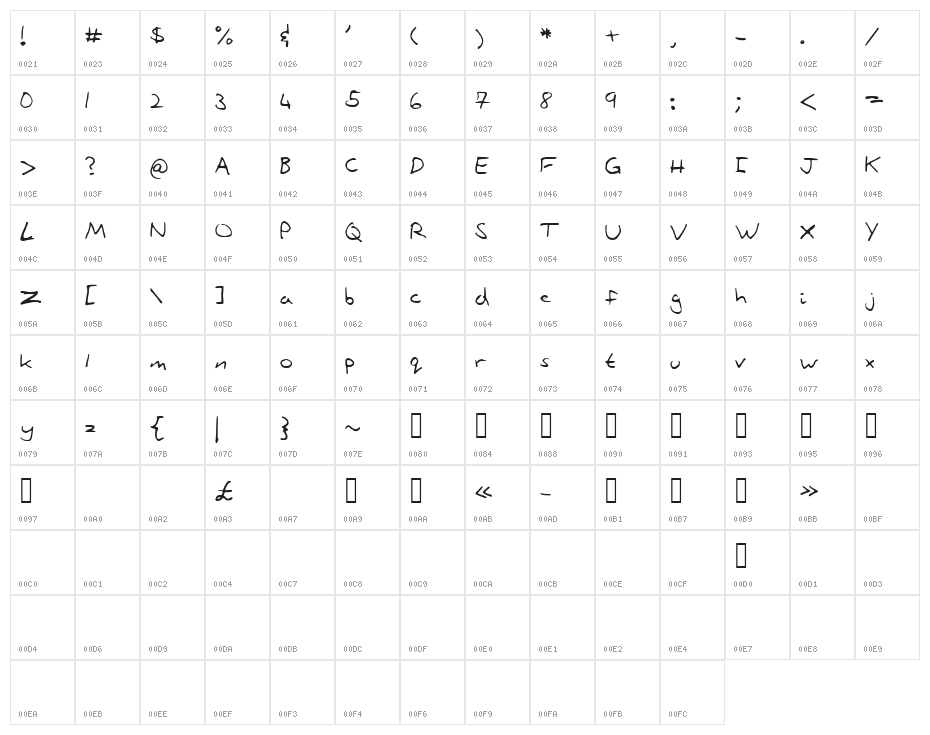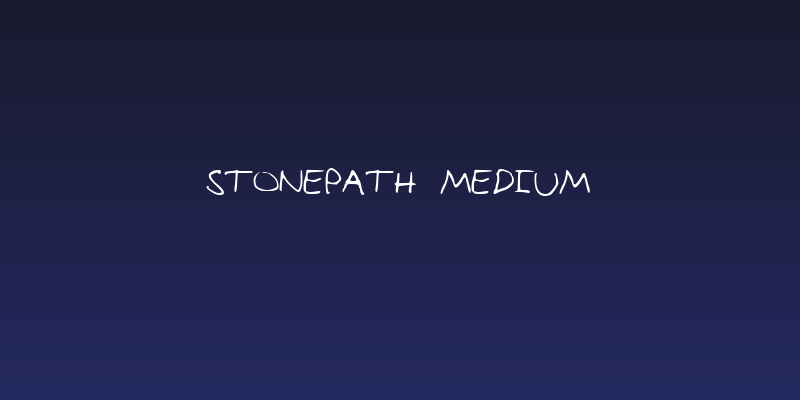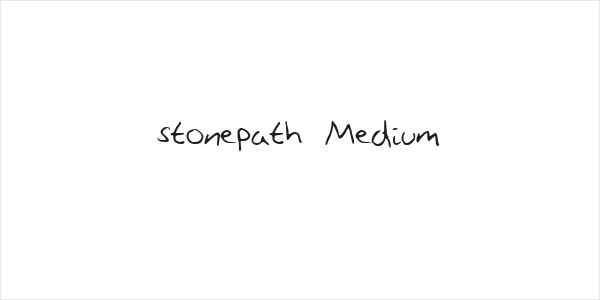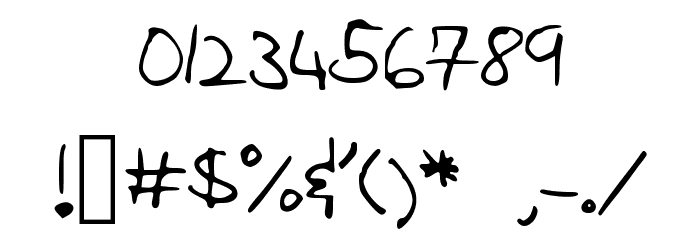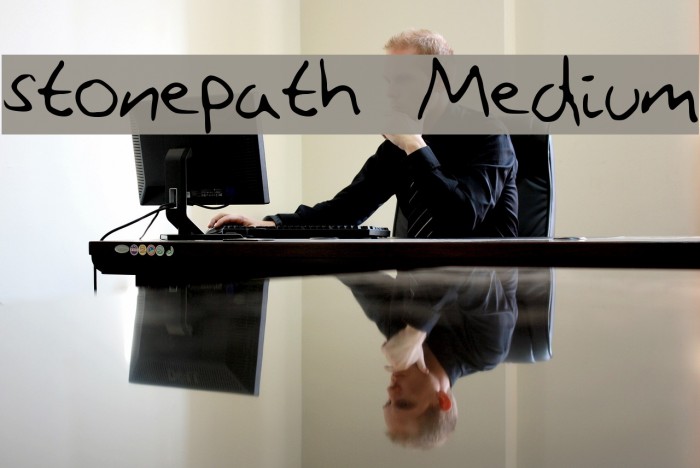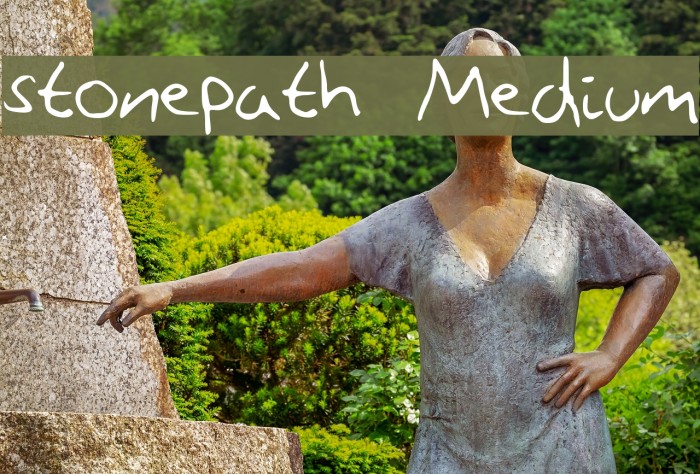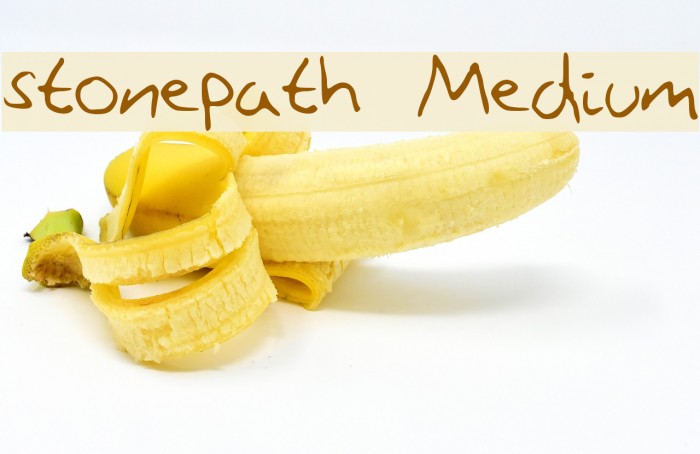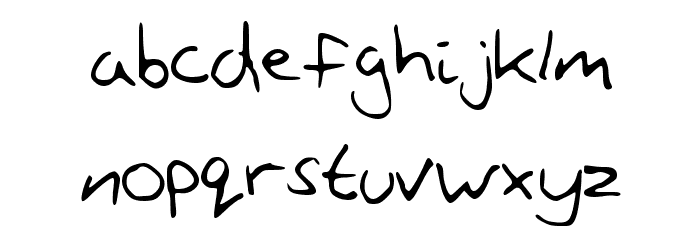
stonepath Medium Font
stonepath Medium Description
This font features a playful and casual handwritten style, characterized by its irregular strokes and organic flow. The letters have a natural, slightly uneven appearance, giving them a personal and informal touch. The uppercase and lowercase letters maintain a consistent style, with rounded edges and varying line thickness that add to the font's charm. The numerals and special characters follow the same aesthetic, ensuring a cohesive look across all text elements. This font is ideal for projects that require a friendly and approachable feel, such as personal invitations, greeting cards, or creative branding.
| Use Case | Headlines, Logos, Informal text |
| Proposed Projects | Ideal for personal invitations, greeting cards, creative branding, and informal communications. |